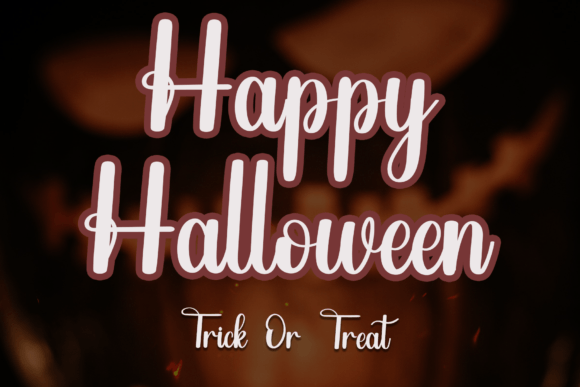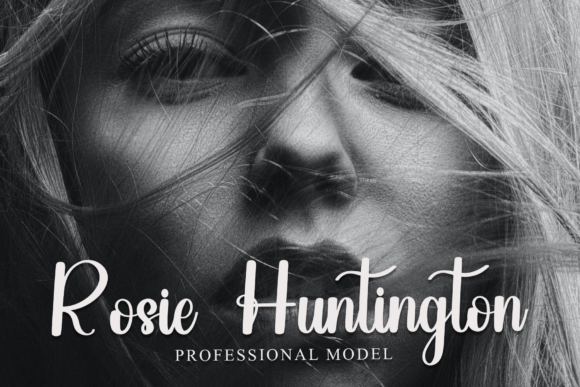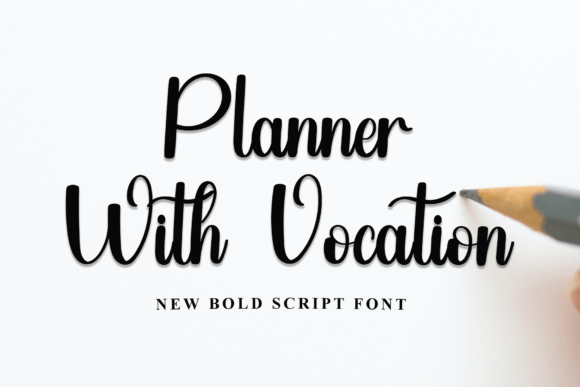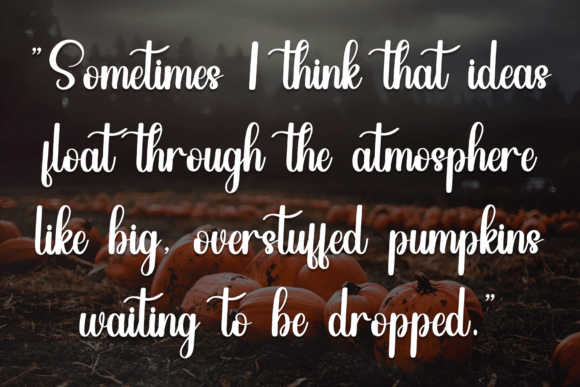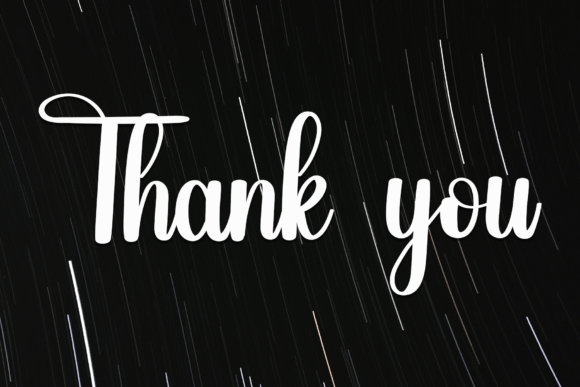
Introduction to Santa Valentine Font
Santa Valentine Is a beautiful and attractive font.
Fonts created with a soft touch, unique and distinctive from a stroke, have a good meaning and meaning for the future Has many characters that can be used for design needs, handicrafts, and many more interesting designs.
Santa Valentine Font offers exceptional quality and versatility, making it a valuable addition to your design toolkit. Whether you’re creating for personal projects or commercial use, Santa Valentine Font delivers professional results.